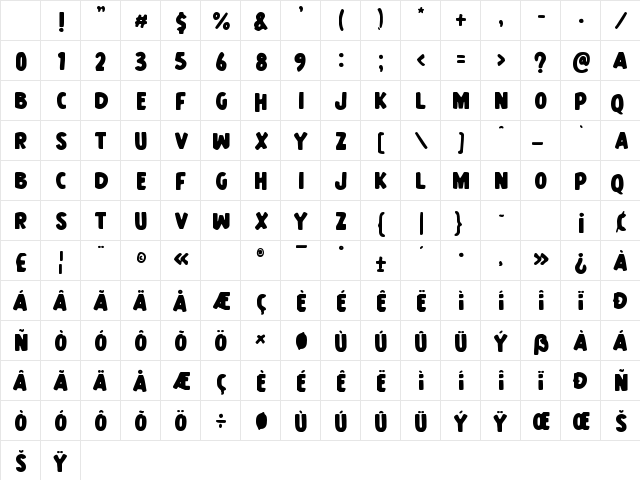
Complete Hulk Comic Regular glyph index. Displaying only characters natively supported by Hulk Comic Regular font.
Hulk Comic has an approachable, lighthearted character - its loose, expressive forms are well-suited to children's content, casual branding, and fun-first design.
Font Pairing: Pairs well with a rounded or humanist sans for body copy, maintaining the friendly tone without relying on Hulk Comic to carry extended reading.
Pro Tip: Use Hulk Comic at larger display sizes where its expressive character can land. Pair with a clean, simple sans for body copy to maintain readability.